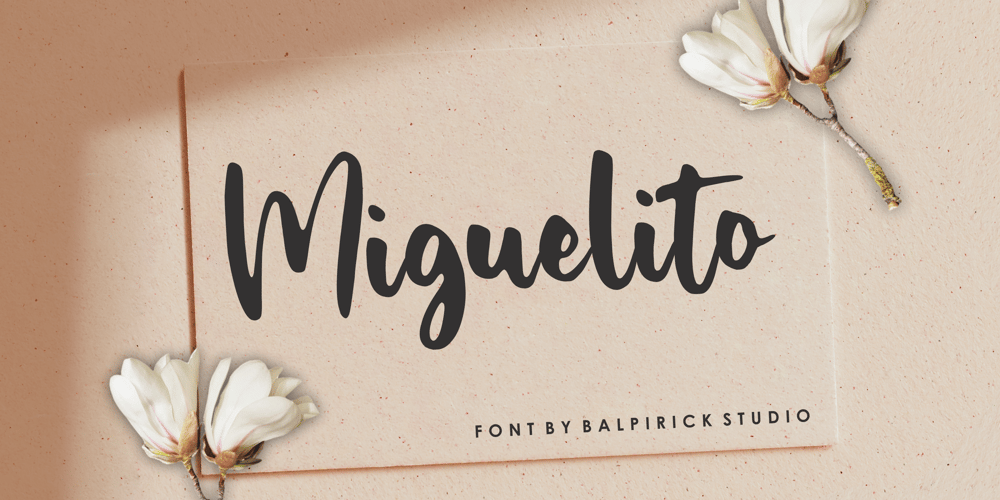
Miguelito
Miguelito font
Miguelito Font Family was designed by Restu Angga and published by Balpirick. Miguelito contains 1 styles and family package options. Miguelito is a Modern Handwritten Font.Miguelito is an elegant script font with a contemporary atmosphere and impeccable form. Not too thin and not too thick, balanced and varied, this font was designed to enhance the beauty of your projects. Miguelito also multilingual support.Enjoy the font, feel free to comment or feedback, send me PM or email.Thank you!